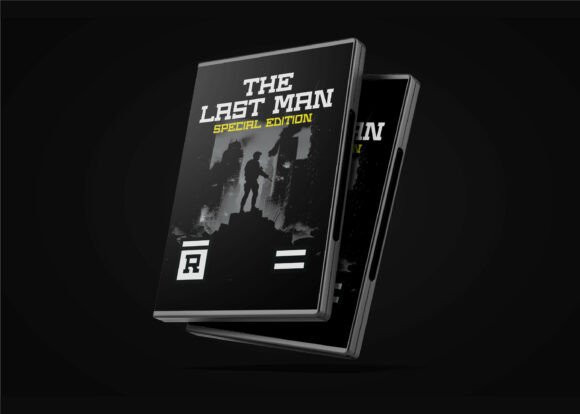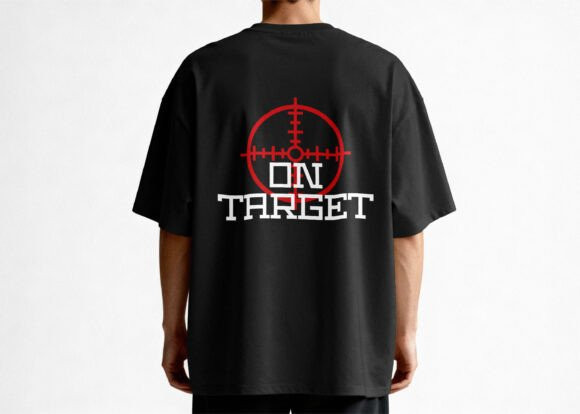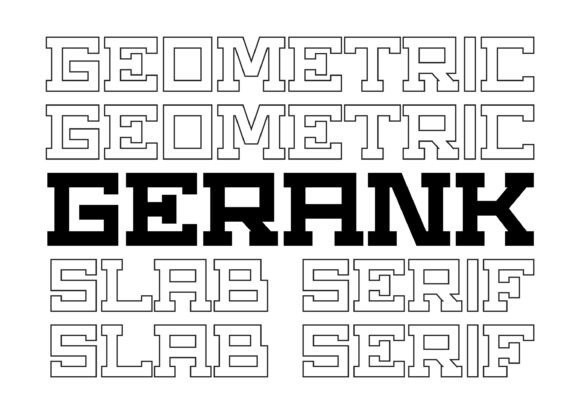
Gerank Font
Gerank Font A robust, architectural display font designed to capture a strong, industrial vibe.Created to bring a sense of rigid structure and commanding presence to your work. With its heavy, blocky forms and sharp geometric cuts, it is an ideal choice for urban streetwear, modern construction branding, or striking editorial layouts that demand a powerful, constructed look.